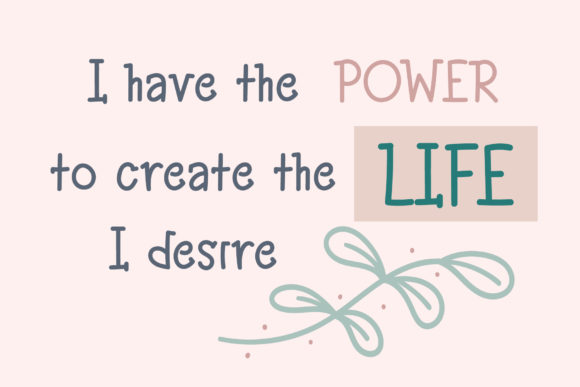
Maggie Font
About Maggie Font
Maggie is a fun and sweet handwritten font. Clean and a little bit quirky, this font is the perfect fit for all of your logos, branding, social media, and crafty DIY projects.